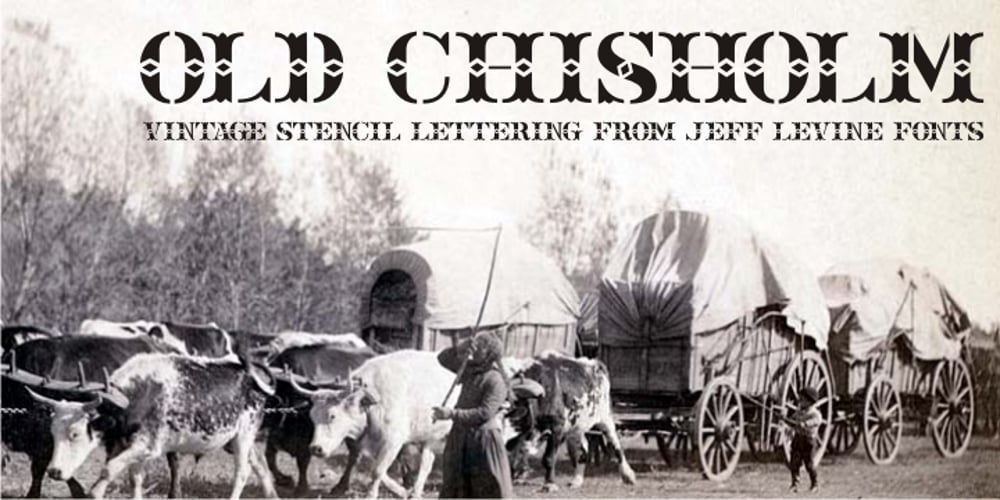
Old Chisholm JNL Font Family was designed by Jeff Levine and published by Jeff Levine. Old Chisholm JNL contains 1 styles and family package options. An old brass stencil of the word ‘large’ was spotted for sale in an online auction. What set it apart from many other vintage stencil items was the beautiful, hand-punched Western letters with a diamond-shape center. Those five letters served as the basis for Old Chisholm JNL, which retains the look and hand-made charm of the original metal stencil.